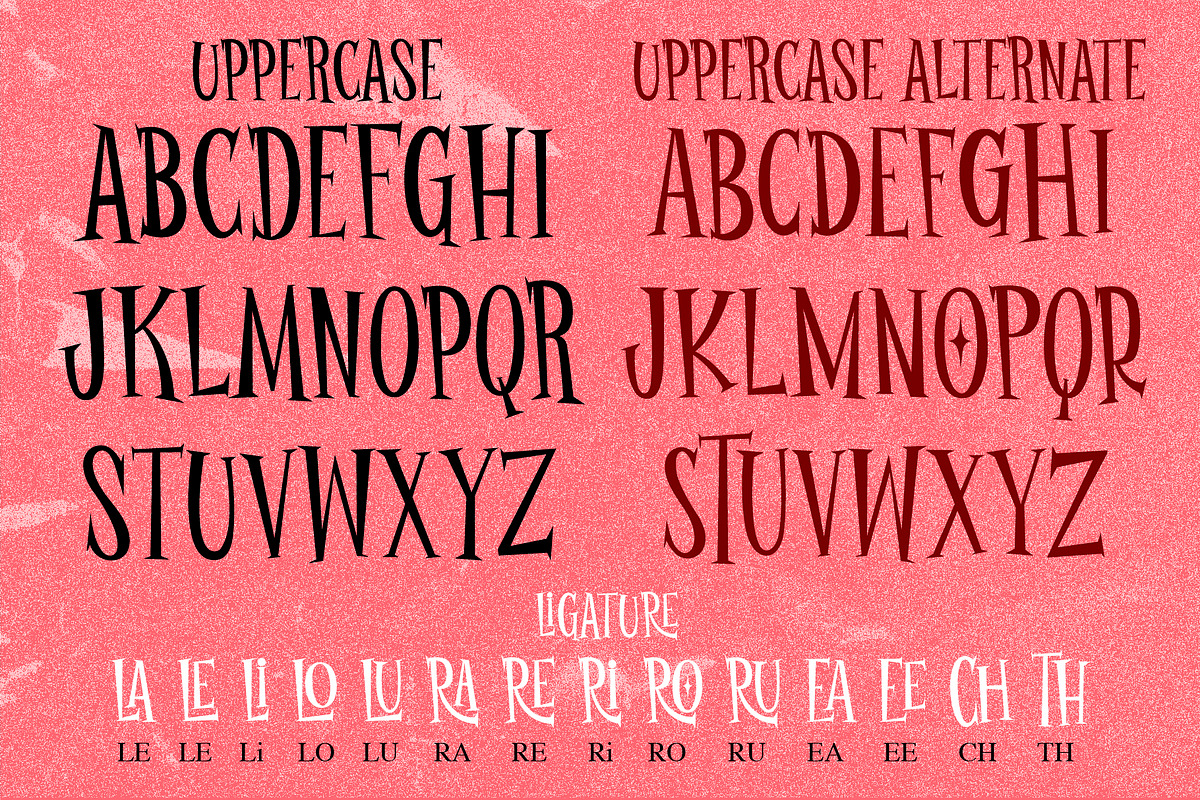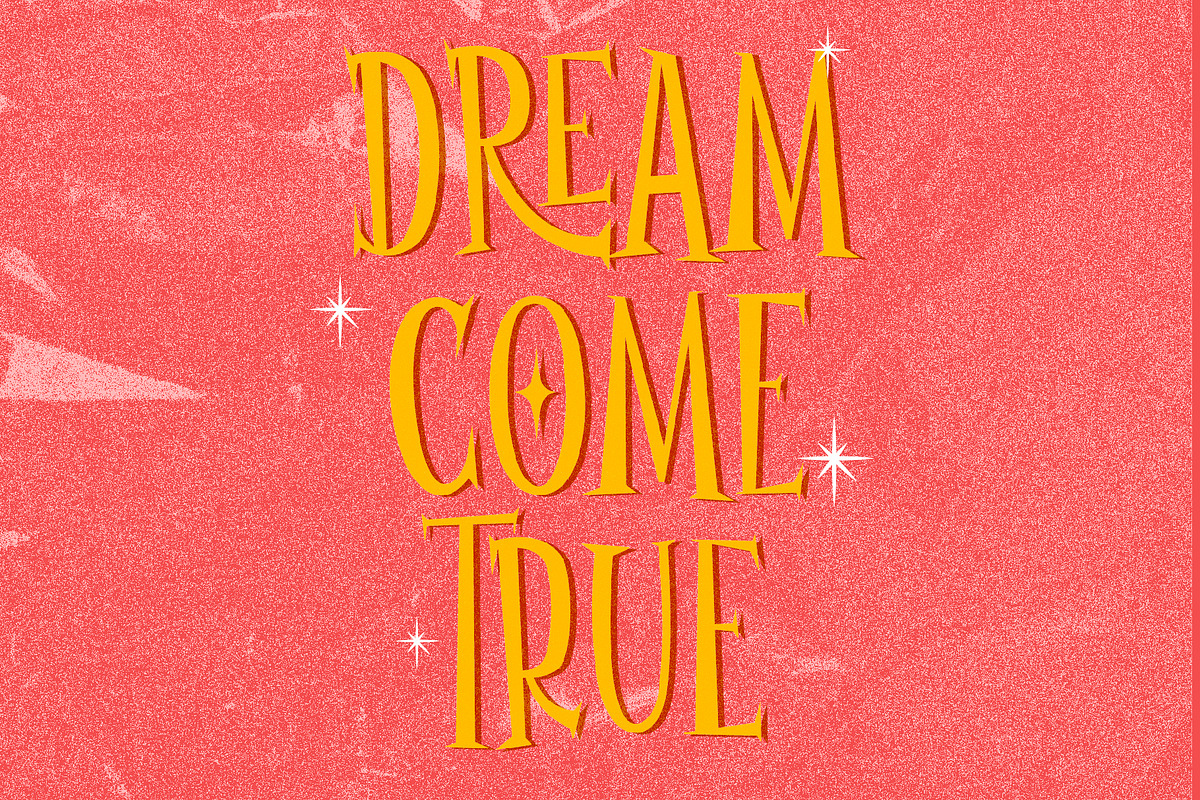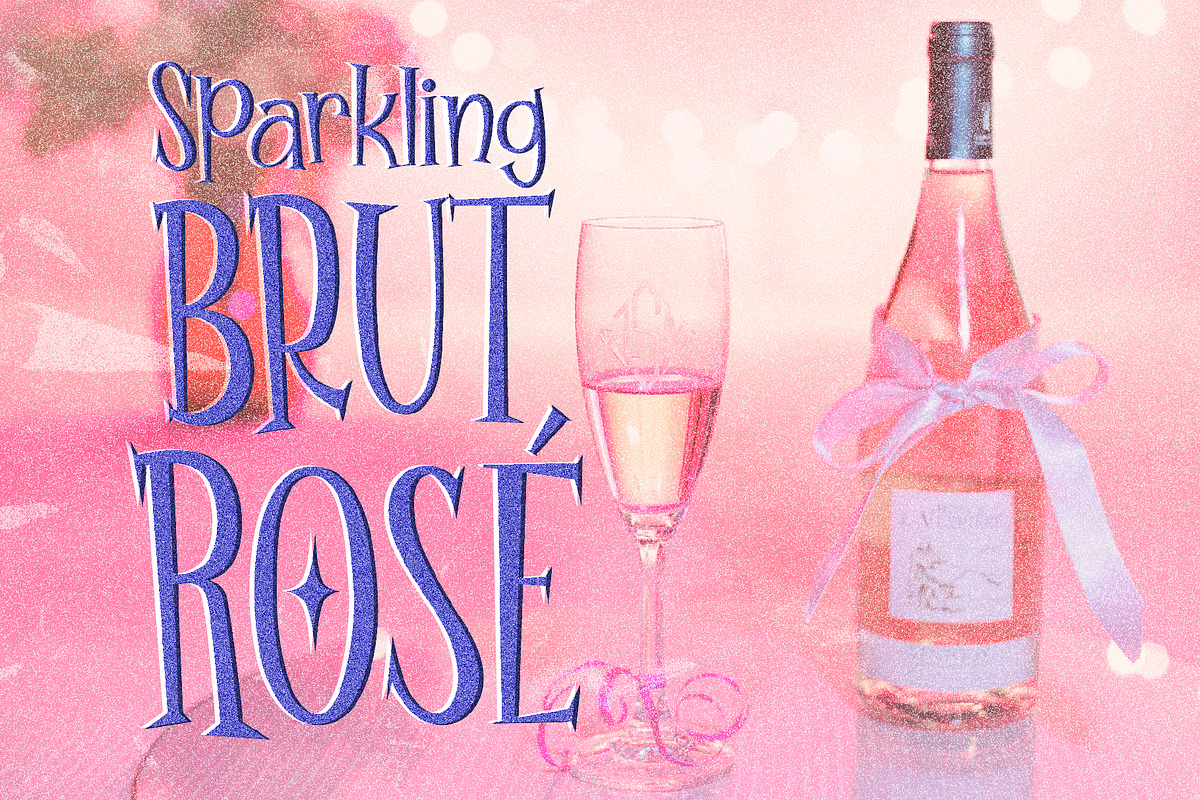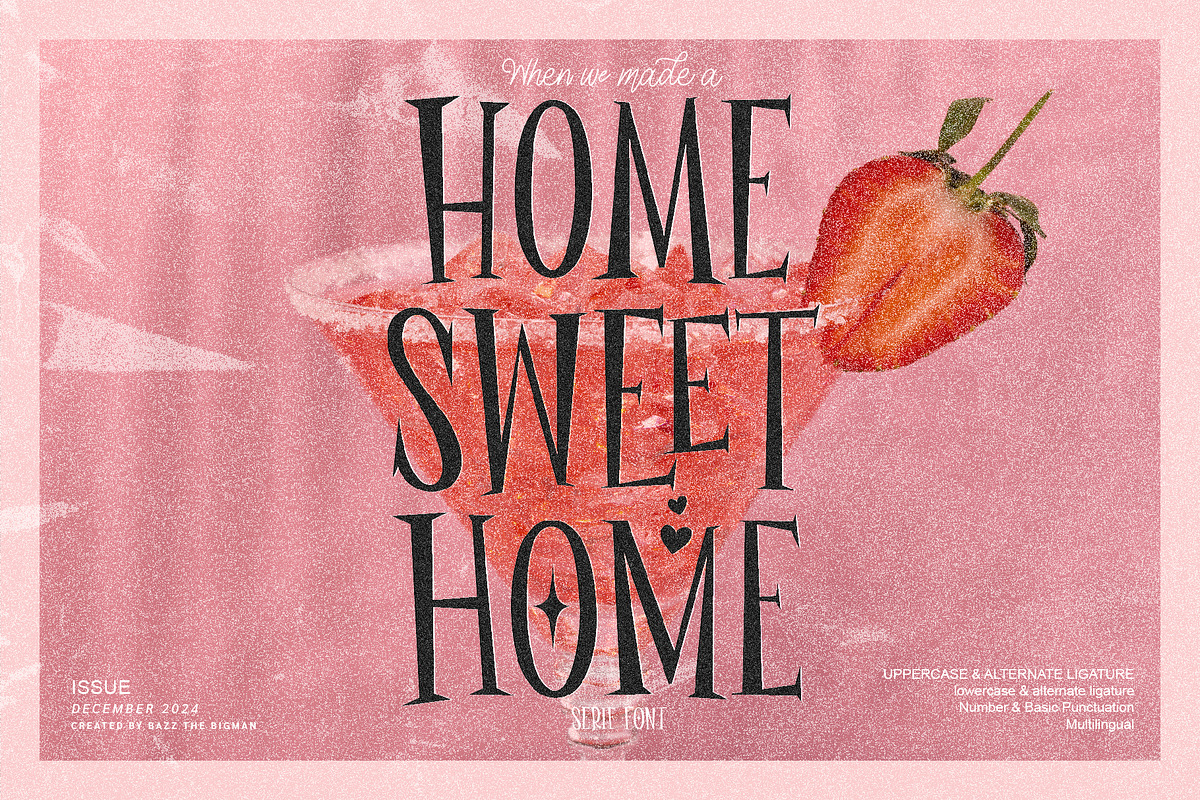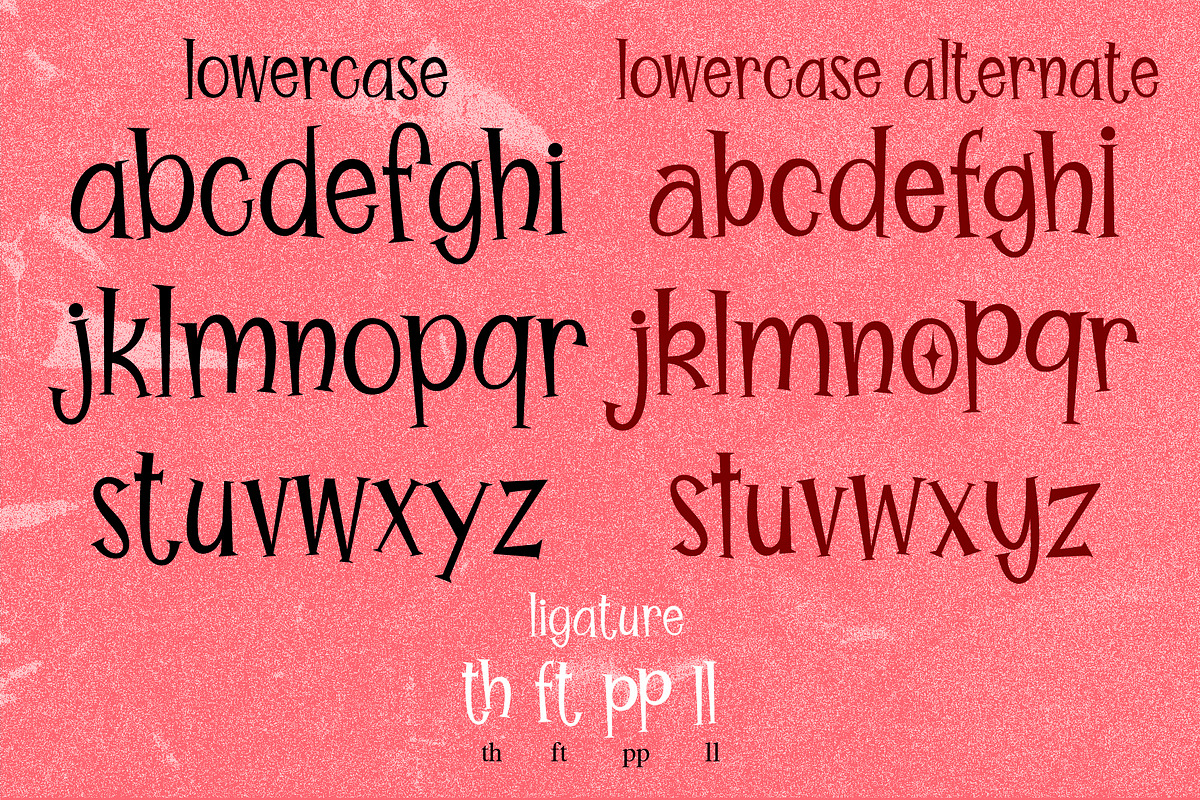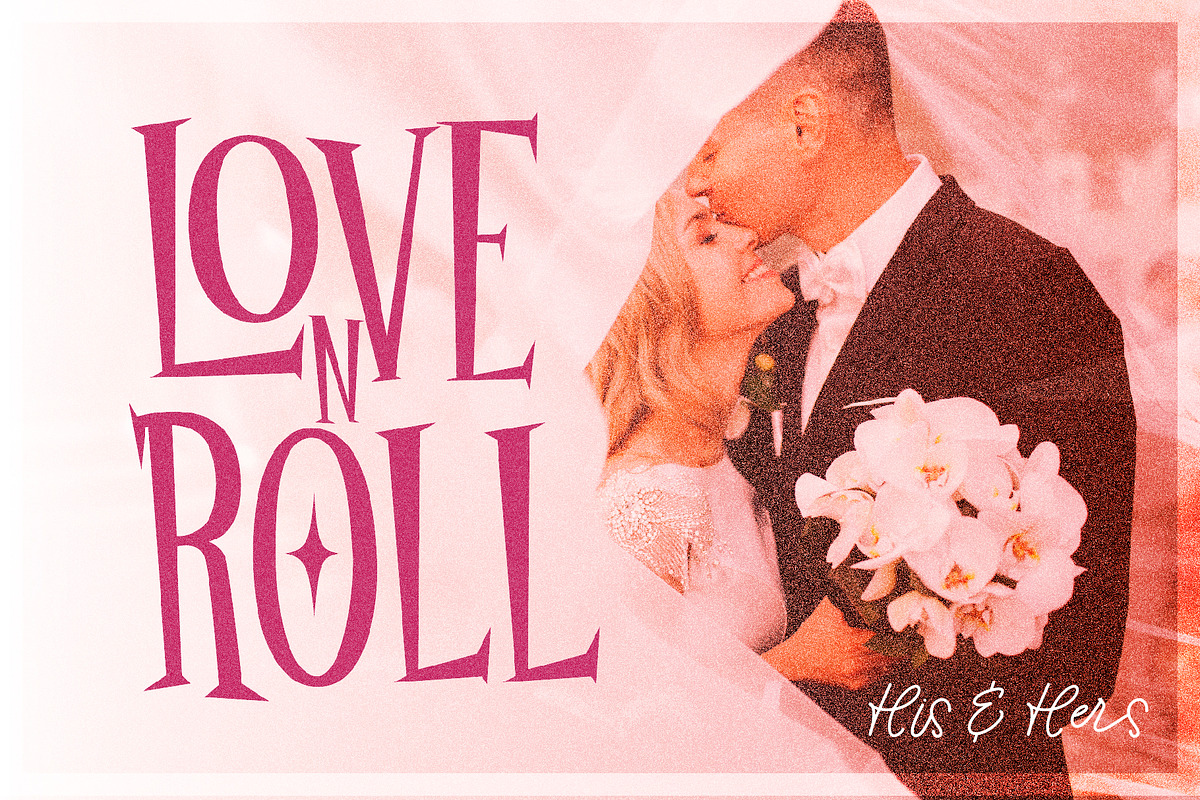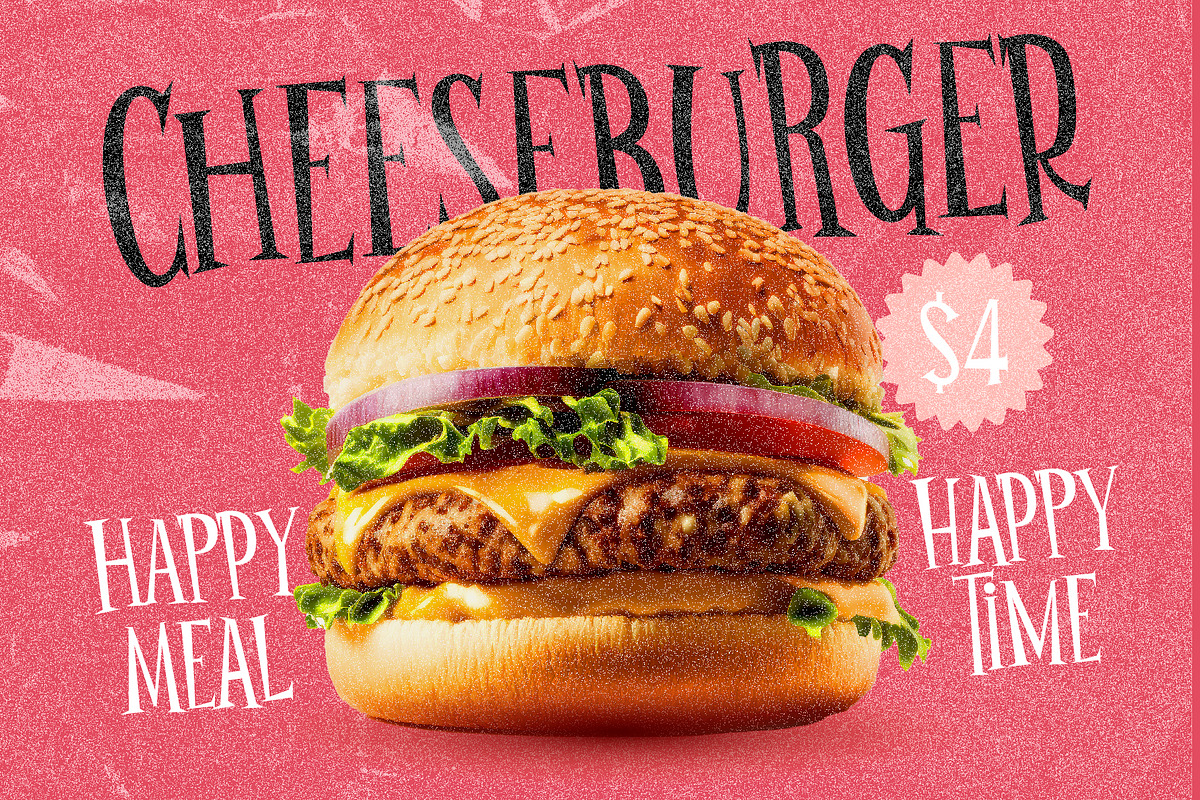
Home Sweet Home
Introducing ‘Home Sweet Home’, a vintage-inspired serif font, steeped in a bona fide retro aesthetic that stands head and shoulders above the crowd. This sparkling attraction graces all forms of displays and product designs, elevating them into works of art. Whether it’s for shirt designs, stunning posters, vibrant stickers, striking logos, or unique branding, ‘Home Sweet Home’ is the perfect choice. It goes beyond convention to adorn greeting cards, projects, magazines, and planner prints. Even in the digital realm, this font accentuates social media posts, websites, and everything else in between. Equipped with PUA encoding, ‘Home Sweet Home’ is an epitome of comfort and accessibility, allowing you to seamlessly reach all glyphs — it’s the epitome of an effortless charm that’s bound to impress.